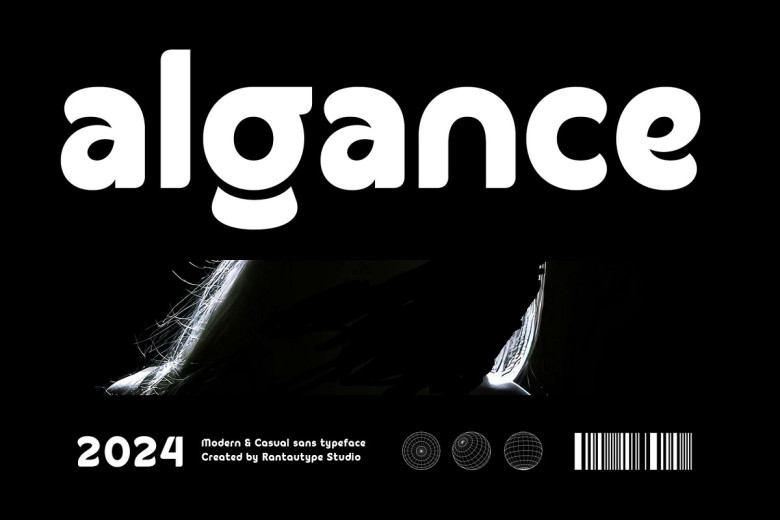
Algance Font
Algance Font is a modern sans serif typeface font with unique details and contrast shape, it shows luxury of typefaces and classy. Deep in the industrial design principles of Algance urged to carefully craft with geometry.
That makes Algance perfectly suited to any creative project that needs chic, lifestyle design. That could be logos, advertisements and watermarks on photography or as part of stationery branding projects for an elegant cafe, quality urban clothing line or a high-style real estate brand with an industrial touch: Display and magazine invitation; corporate identity; business project.
Algance Sans Serif Font